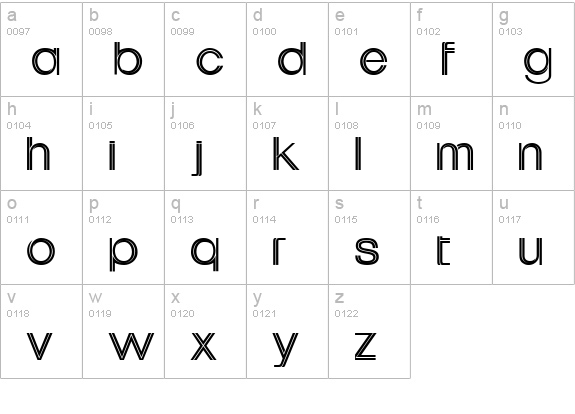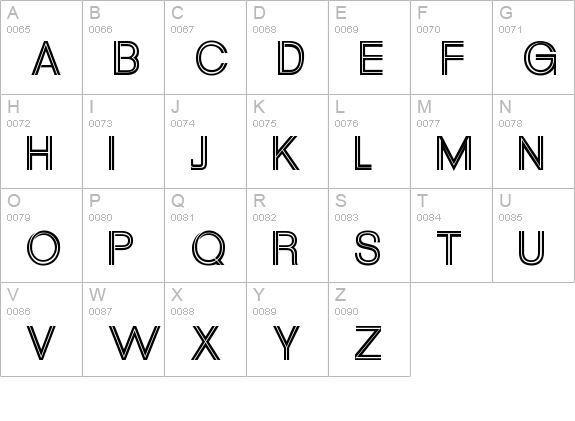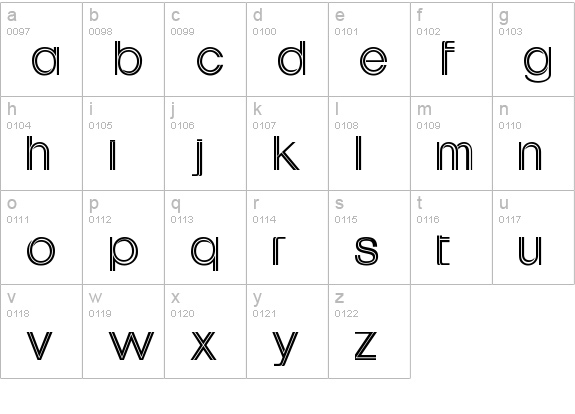
Uptight NeonITC-Normal is the standard, neutral variant in the Uptight typeface family \xE2\x80\x94 well suited to general body text, paragraphs, and standard typographic work.
Uptight NeonITC-Normal font is a stunning display of modernity and sophistication. With its sleek lines and bold design, this font exudes a sense of confidence and professionalism. It is perfect for any project that requires a touch of elegance and style. Featuring a unique combination of sharp angles and smooth curves, Uptight NeonITC-Normal font is sure to catch the eye and make a lasting impression. Its clean and crisp appearance ensures readability, making it suitable for a wide range of applications, from branding and advertising to web design and print media. What sets Uptight NeonITC-Normal font apart is its versatility. It can easily adapt to various design concepts, whether you're aiming for a modern, futuristic look or a more classic and timeless aesthetic. This font truly offers endless possibilities for creative expression. And the best part? Uptight NeonITC-Normal font is freely available to download at FontsMarket.com. Now you can bring your projects to life without worrying about any additional costs. Embrace the freedom to explore and experiment with this remarkable font, and watch your designs come to life with style and flair. So why wait? Download Uptight NeonITC-Normal font today and unleash your creativity like never before. Experience the power of this font and elevate your designs to new heights. FontsMarket.com is your one-stop destination for all your font needs, providing you with high-quality fonts that are just a click away. Don't miss out on this incredible opportunity to enhance your visual communication – get Uptight NeonITC-Normal font now and let your creativity shine.